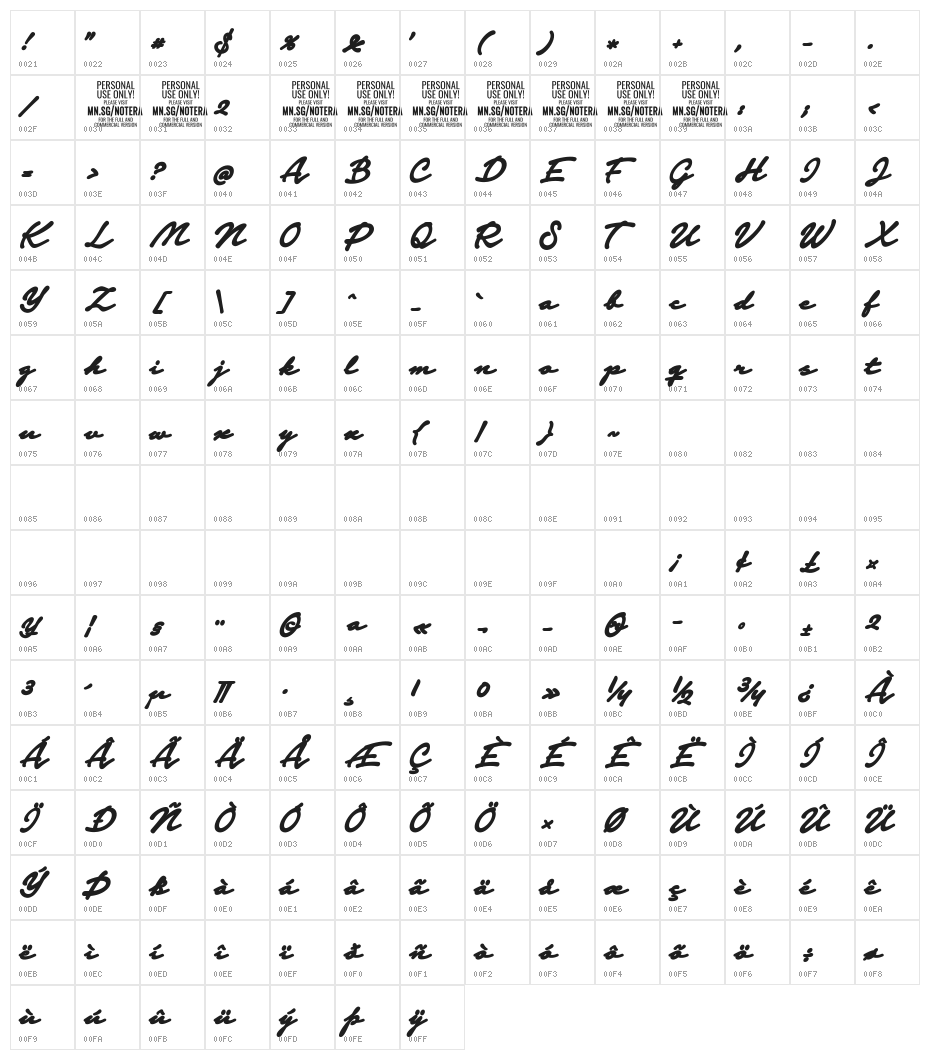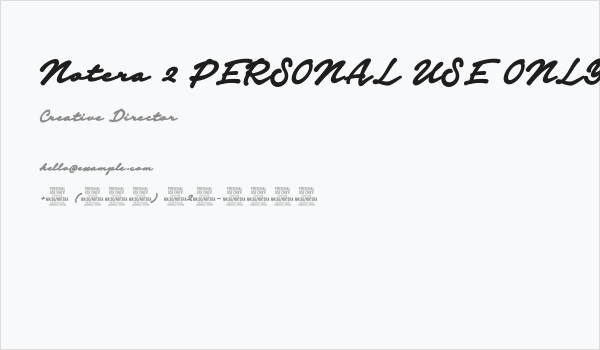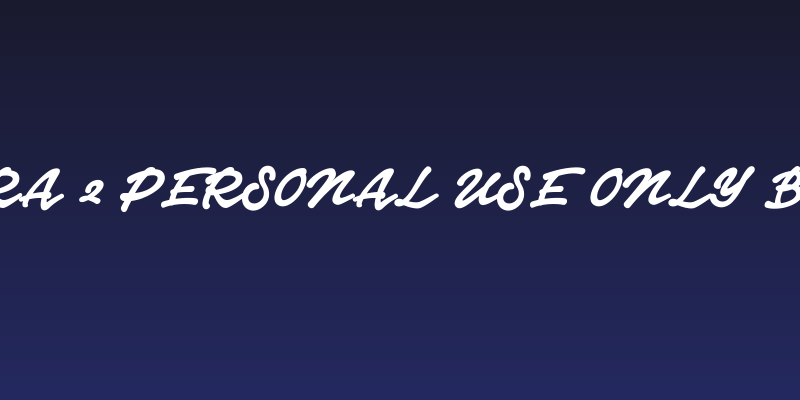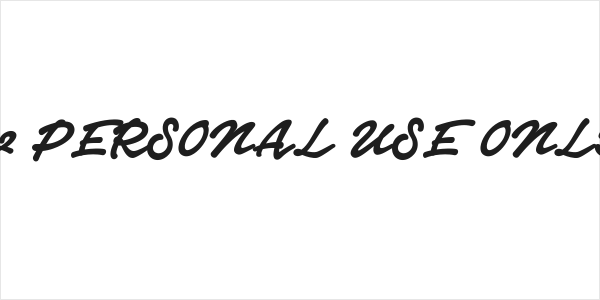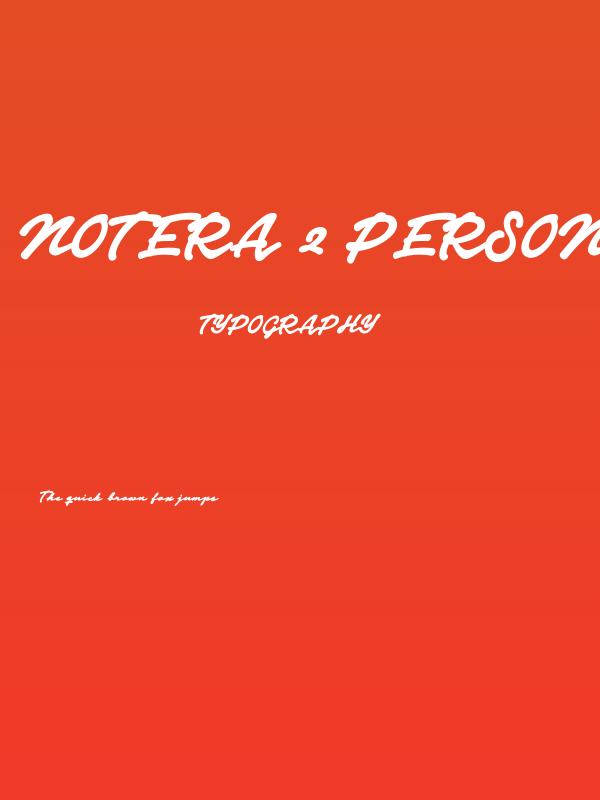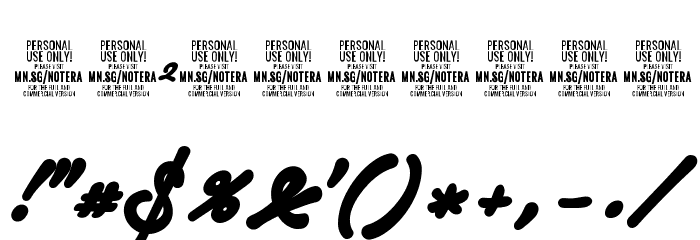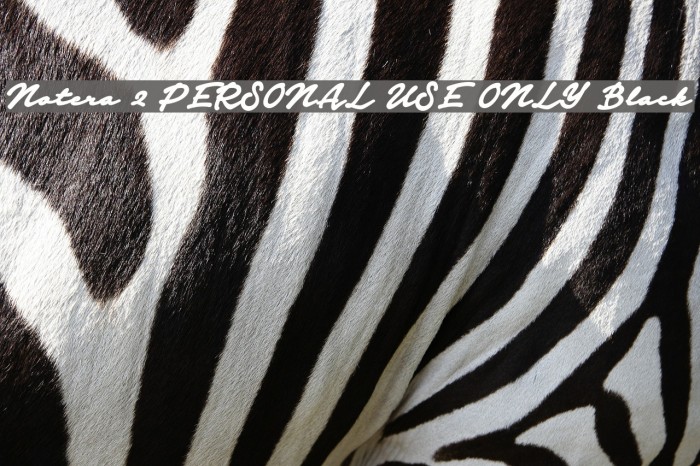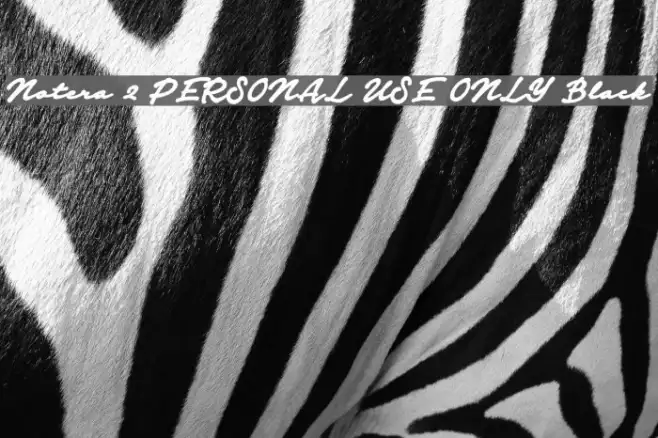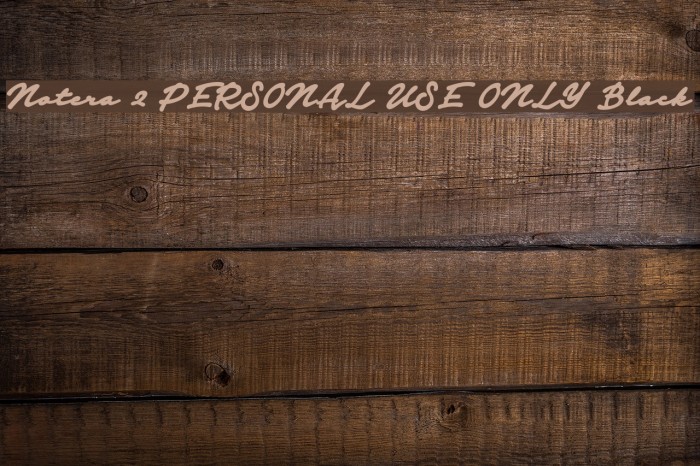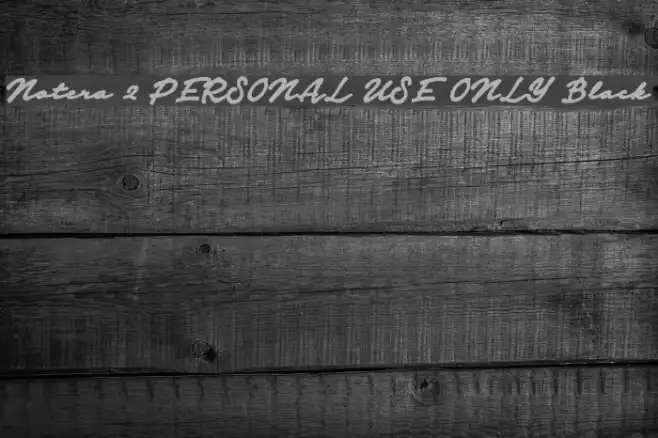
Notera 2 PERSONAL USE ONLY Black Font
| Anwendungsfall | Logos, Invitations, Greeting Cards |
| Vorgeschlagene Projekte | Ideal for invitations, greeting cards, branding, and logo design where a personal and elegant touch is desired. |